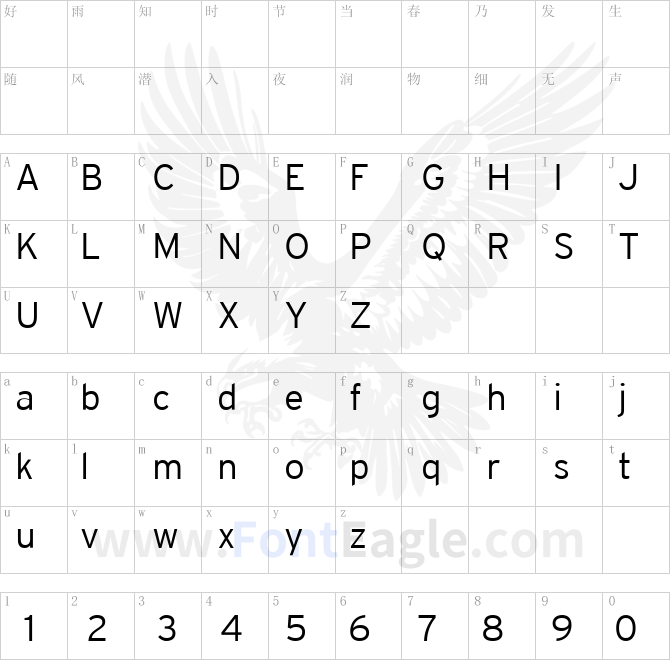
- Font name:InterstatePlus
- Font Full Name:InterstatePlus Light
- Font Copyright:\251 1994, Tobias Frere-Jones. Designed by Tobias Frere-Jones. Produced by The Font Bureau, Inc.